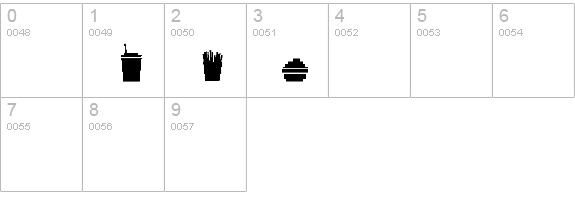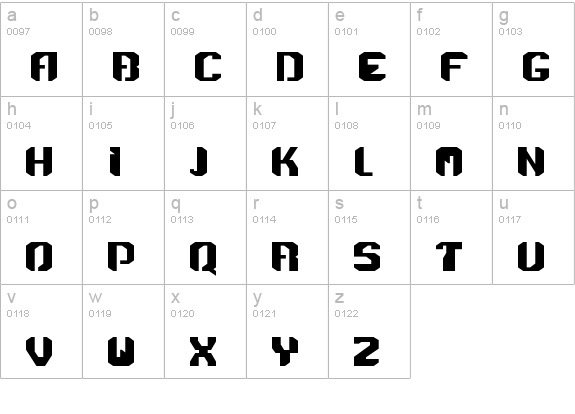
Menace Font Details
Menace font is a bold and edgy typeface that exudes a sense of power and strength. Its sharp angles and distinctive letter shapes make it perfect for creating impactful designs that demand attention. The Menace font is versatile and can be used for a wide range of projects, from logos to posters to social media graphics. What sets Menace font apart is not only its striking design but also the fact that it is available for free download at FontsMarket.com. This means that anyone can access this unique font and unleash its potential in their creative projects without any cost. Whether you are a professional designer looking for a standout font or a hobbyist exploring new typography options, Menace font is a fantastic choice that won't break the bank. Download Menace font today from FontsMarket.com and elevate your designs with its bold and daring aesthetic. Let your creativity run wild with this free and eye-catching typeface that is sure to make a lasting impression.